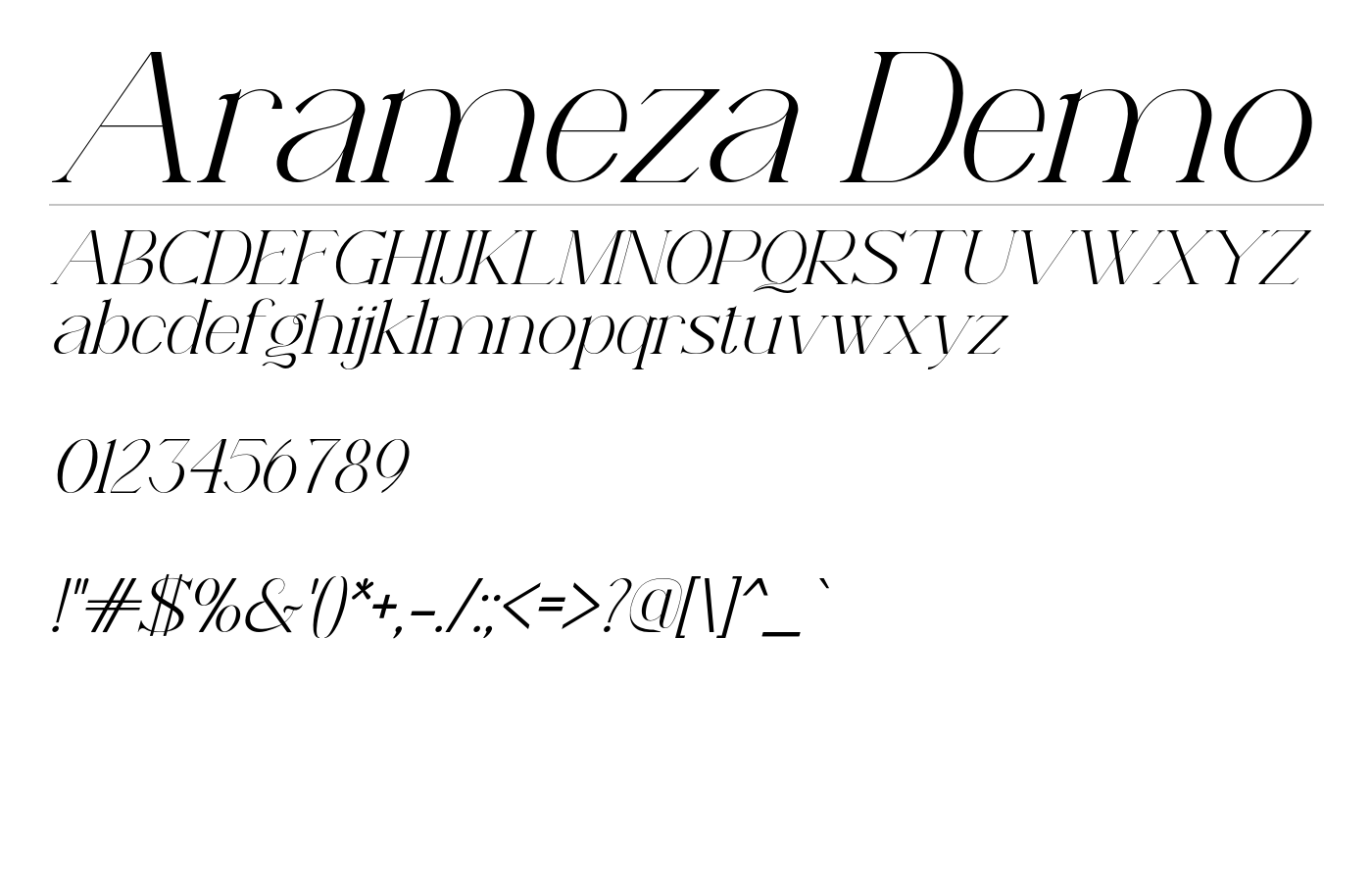
Arameza Demo is a refined serif font characterized by its elegant, high-contrast thin strokes and graceful, italicized letterforms that convey sophistication and style. With its delicate, sharp serifs and slender proportions, it suits luxury branding, fashion, and editorial designs where a touch of classic elegance and modern refinement is desired. This font works best for headlines and display text, adding a sophisticated flair to any upscale project.
Arameza Demo Font
About Arameza Demo Font
| Font family | Arameza Demo Font |
| Designer | Irfan Hidayat |